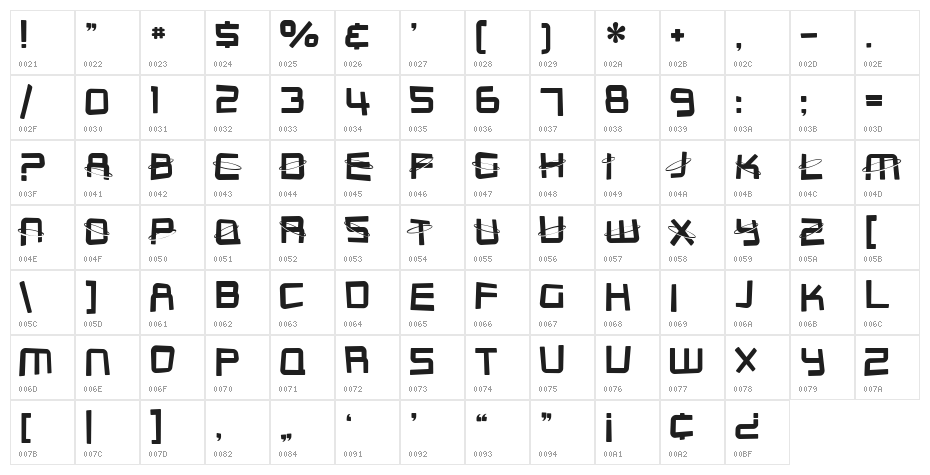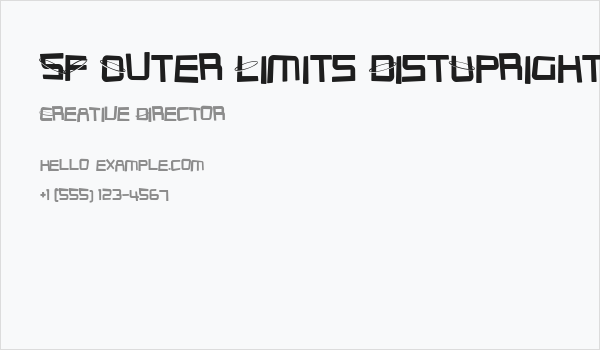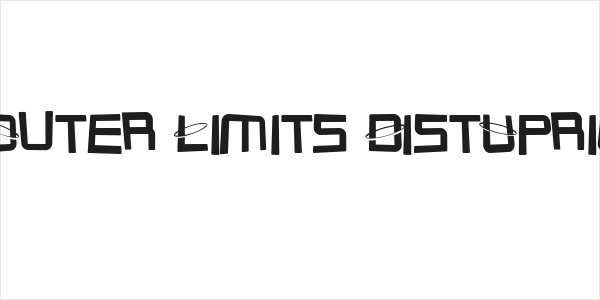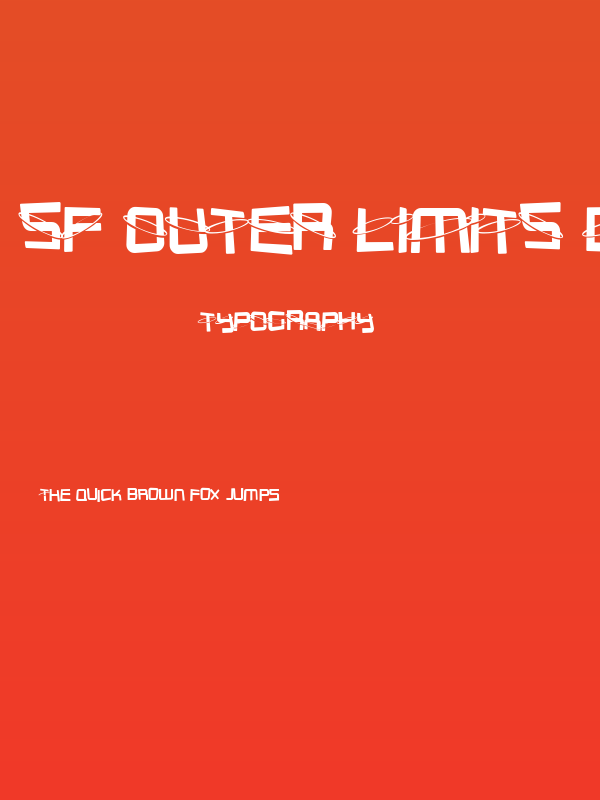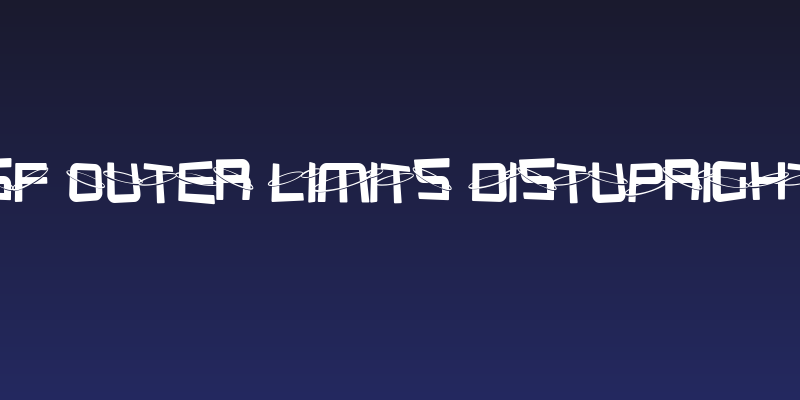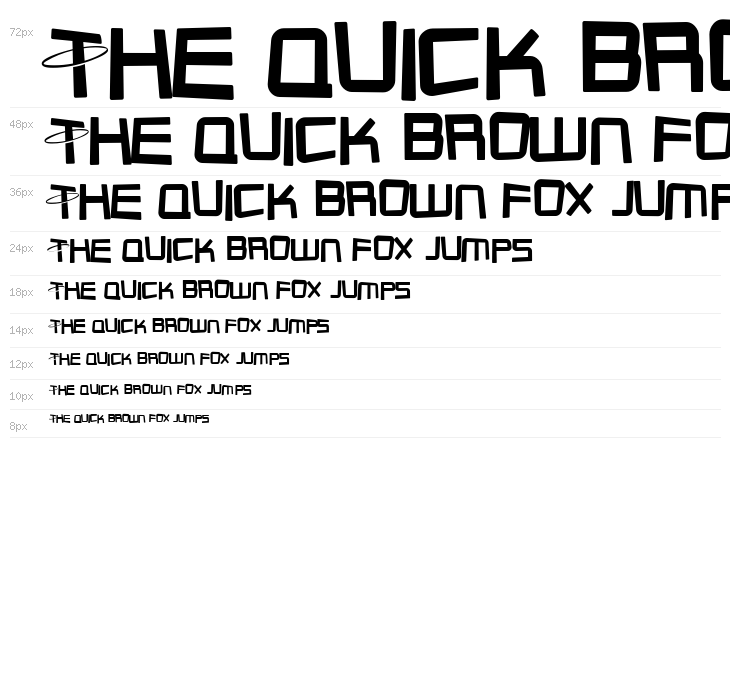
SF Outer Limits DistUpright Font
SF Outer Limits DistUpright Description
This font features a futuristic and geometric design, characterized by its bold and angular letterforms. The uppercase and lowercase characters maintain a consistent width, giving the font a monospaced appearance. The numerals and special characters follow the same stylistic cues, ensuring uniformity across all glyphs. The font's unique style is accentuated by its sharp edges and clean lines, making it ideal for projects that require a modern and tech-inspired aesthetic. Its distinct appearance is both eye-catching and functional, suitable for a variety of digital and print applications.
| Proposed Projects | Ideal for sci-fi themed designs, tech branding, video game interfaces, and futuristic posters. |